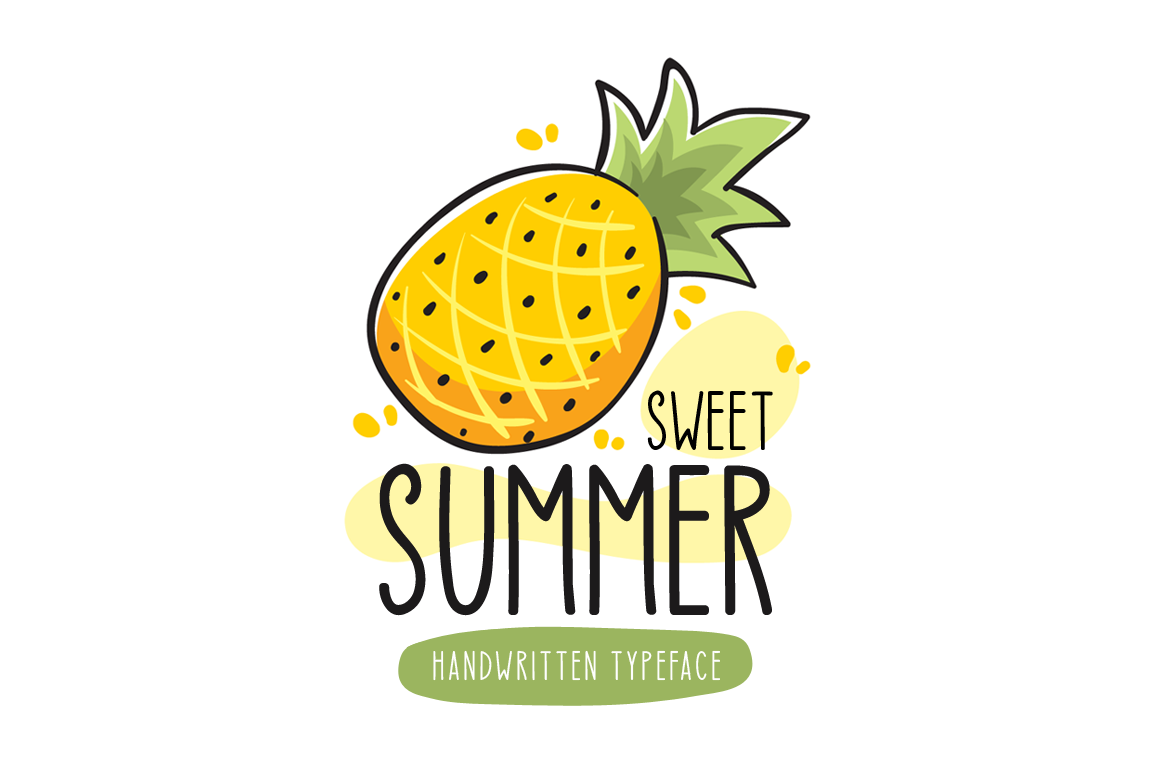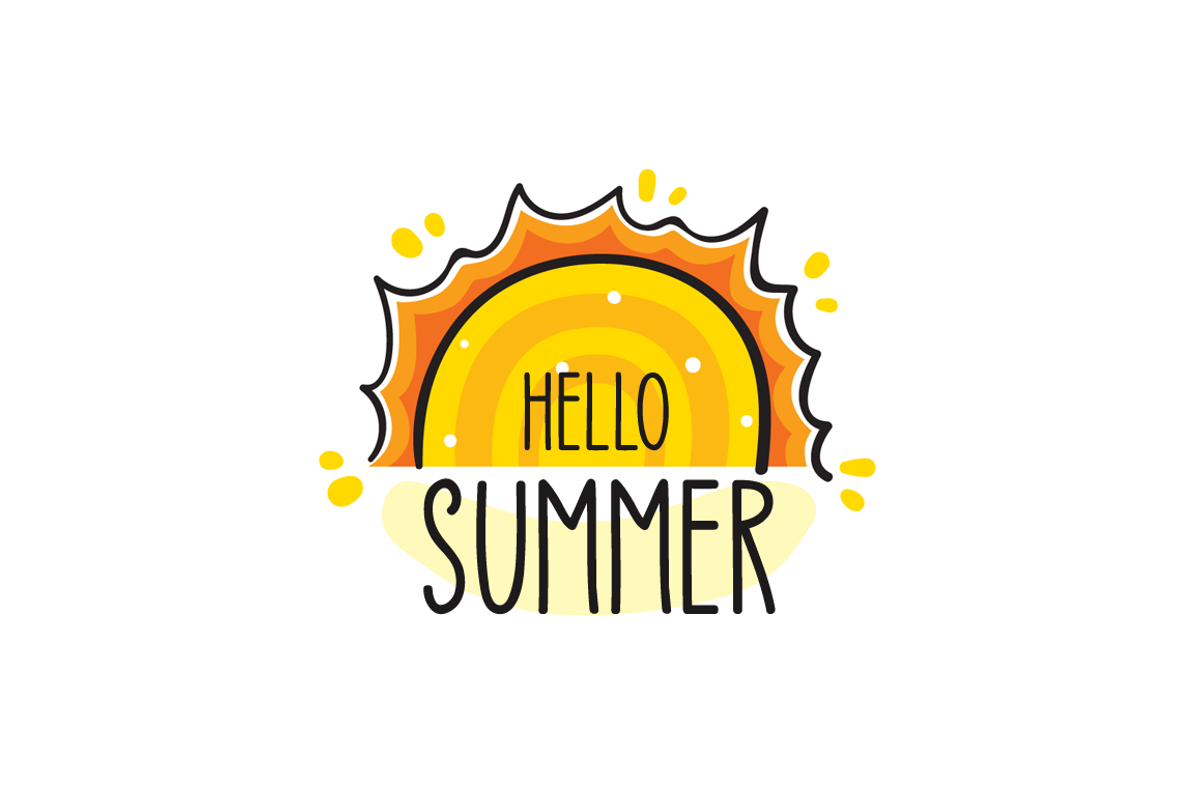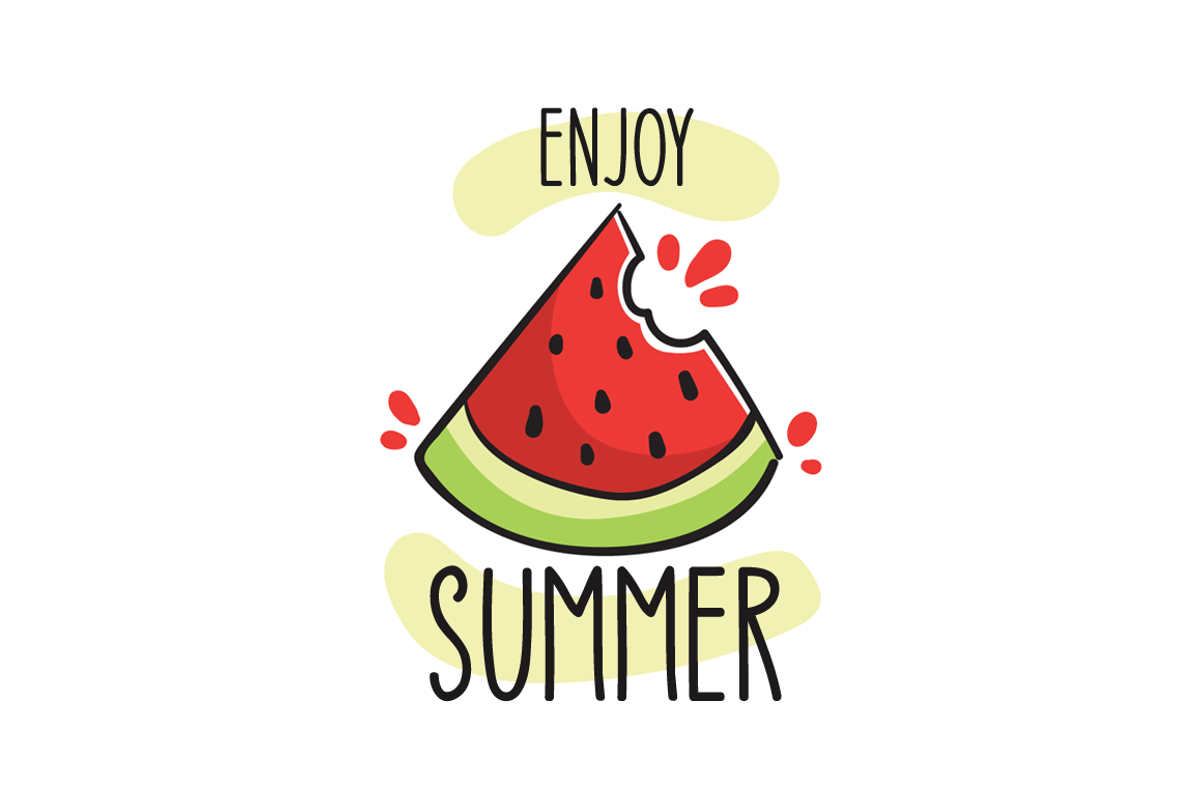
Sweet Summer Typeface
Introducing Sweet Summer!
Sweet Summer is a brand new handwritten font. Sweet Summer is perfectly suited for stationery, logos, t-shirt, paper, print design, website header, photo frame, flyer, music cover, poster, image slider, and much more.
Includes a range of multilingual support